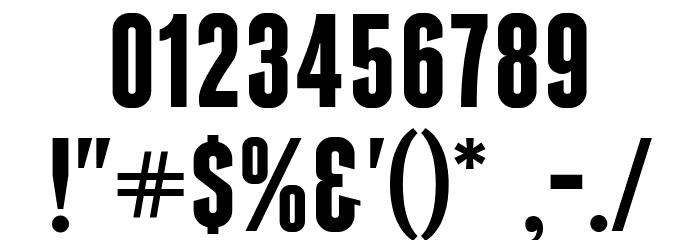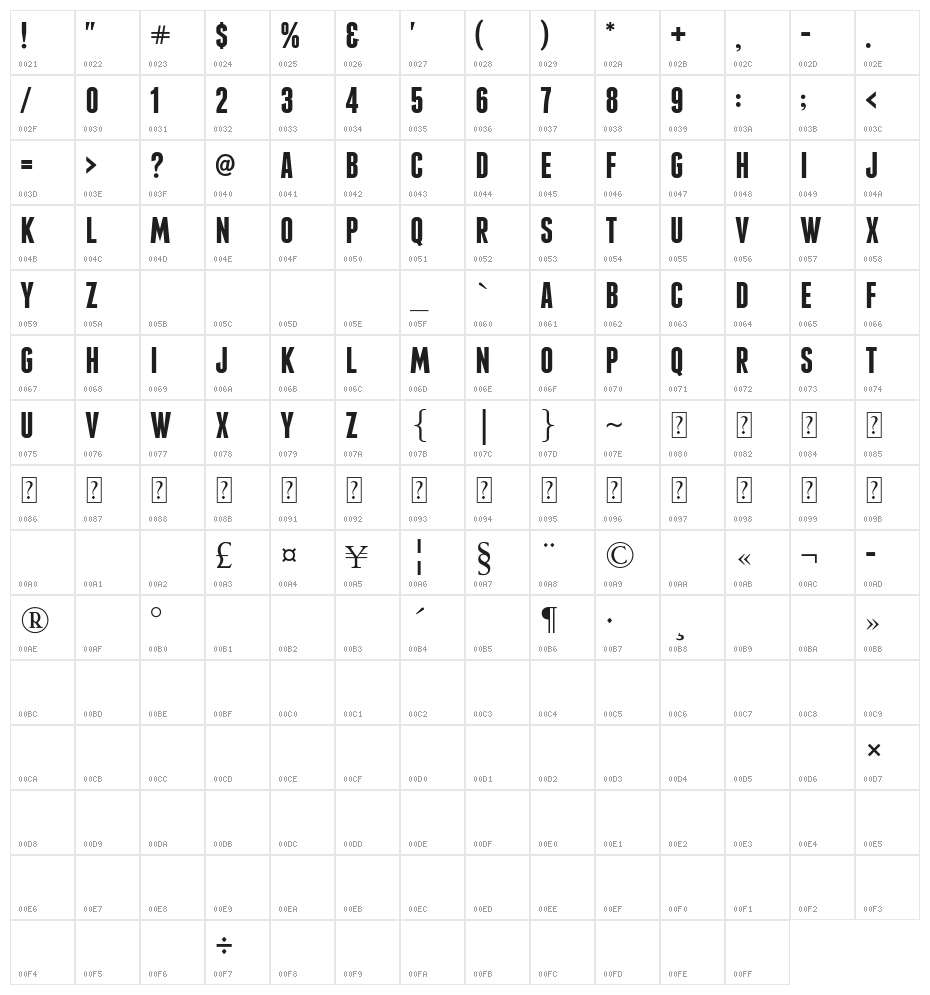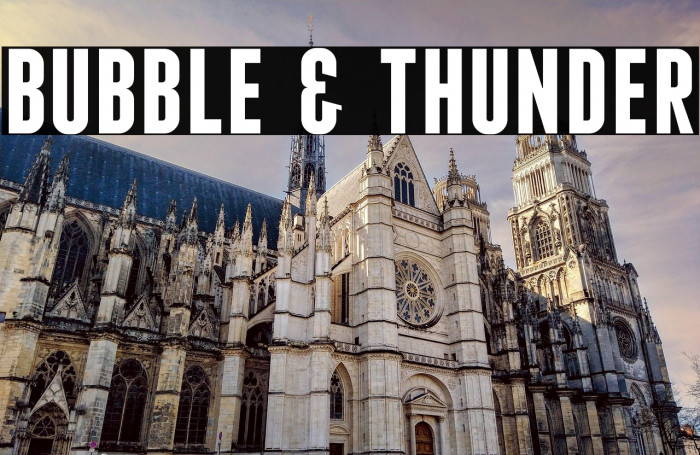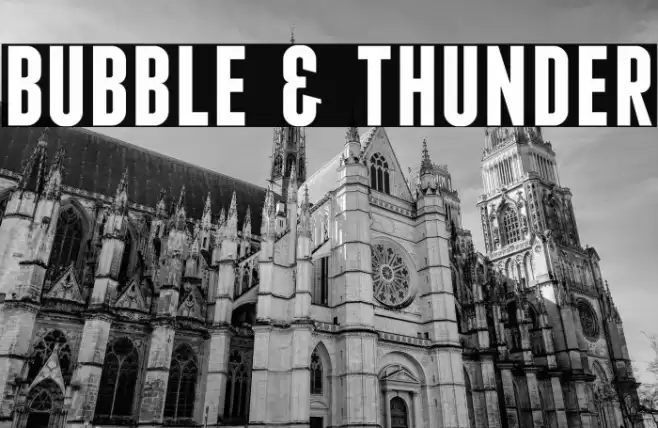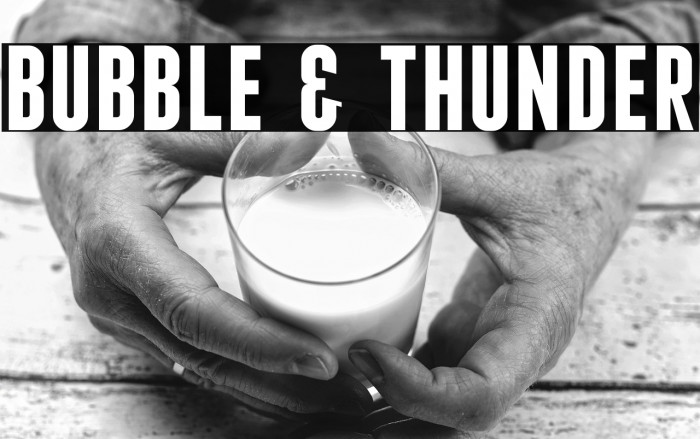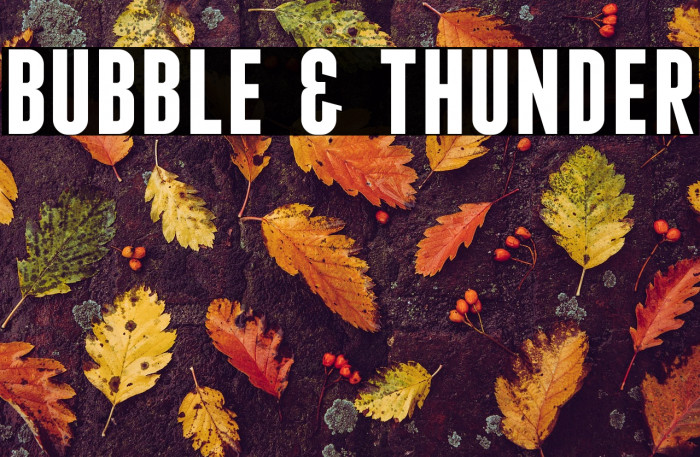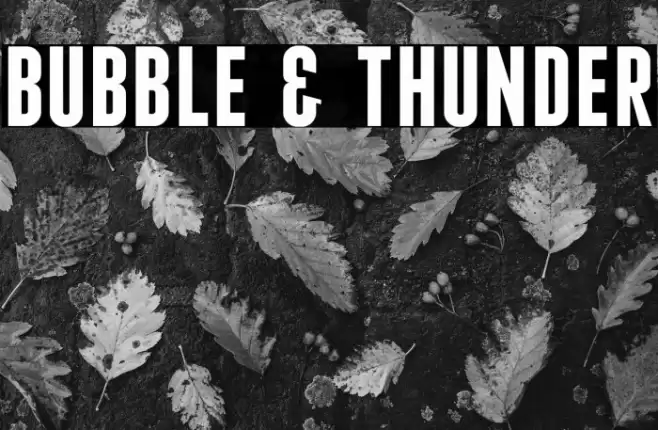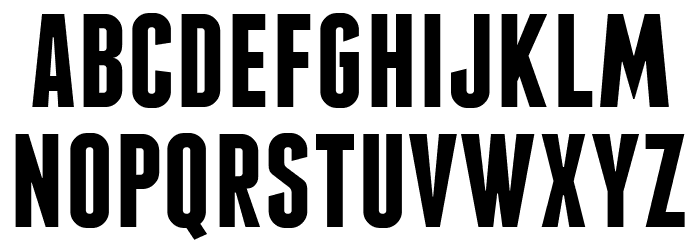
Bubble & Thunder Font
Bubble & Thunder Description
This bold, sans-serif font features a strong, impactful presence with its thick, uniform strokes and slightly condensed letterforms. The uppercase letters are particularly striking, offering a sense of authority and modernity. The numbers and special characters maintain the same boldness, ensuring consistency across all text elements. The font's clean lines and lack of serifs contribute to its contemporary style, making it highly legible and suitable for various design applications.
| Proposed Projects | Ideal for headlines, posters, branding, and advertising where a bold statement is needed. |